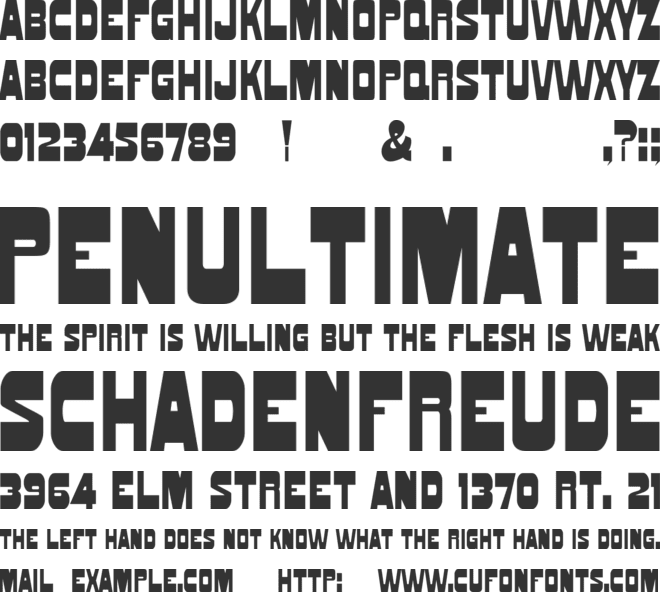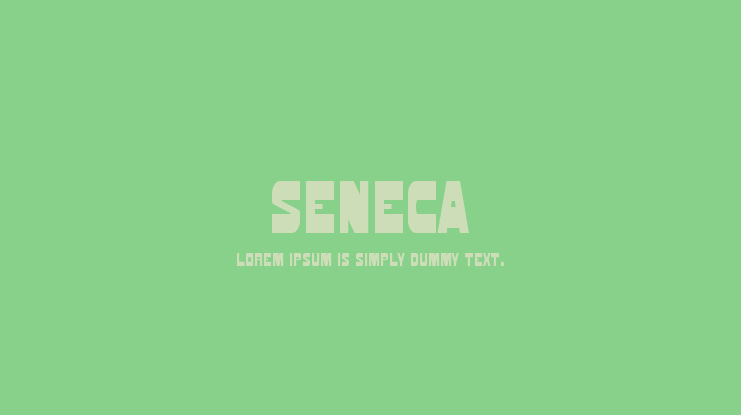
SENECA Font
SENECA is a Block Capital font that gives the impression of being firm, organized and clean. SENECA is my first font that uses All Caps, so if there are still many shortcomings, please understand. This font is perfect for use on posters, headlines, t-shirts, etc.